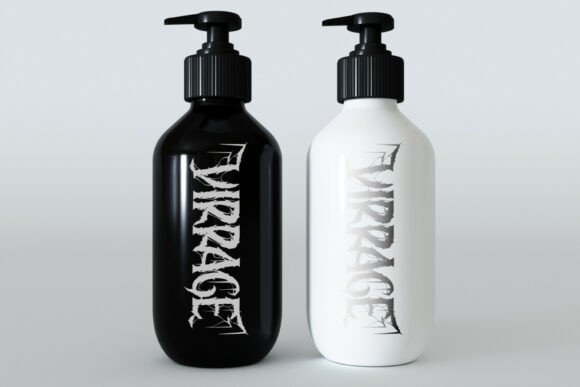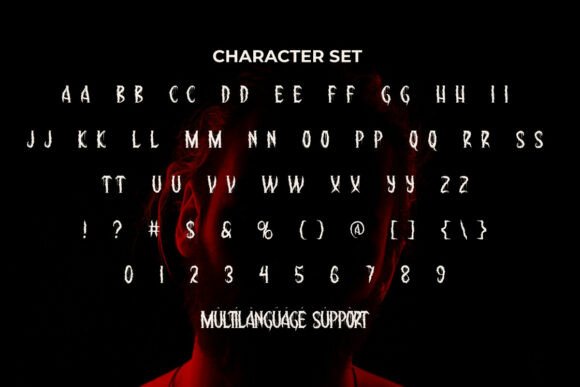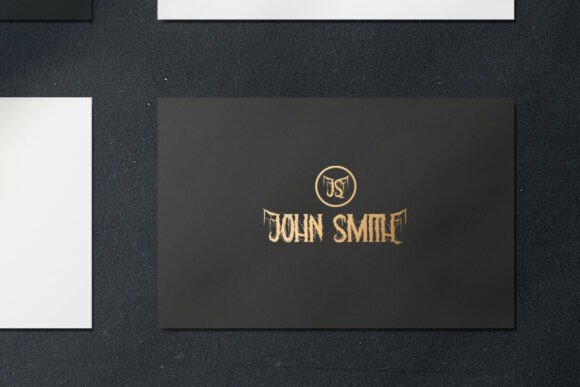
Introduction to Hugeous Font
Hugeous is an intensely dramatic Black Metal Font, custom-built to deliver a terrifying, high-impact aesthetic essential for the music and horror industries.
This extreme display font is characterized by its sharp, jagged edges, menacing drips, and unsettling, elongated curves that perfectly embody the dark and raw energy of its genre The Hugeous typeface is the ultimate tool for designing brutal album covers, creating spine-chilling horror movie titles, or crafting heavy metal band logos that must stand out in the underworld.